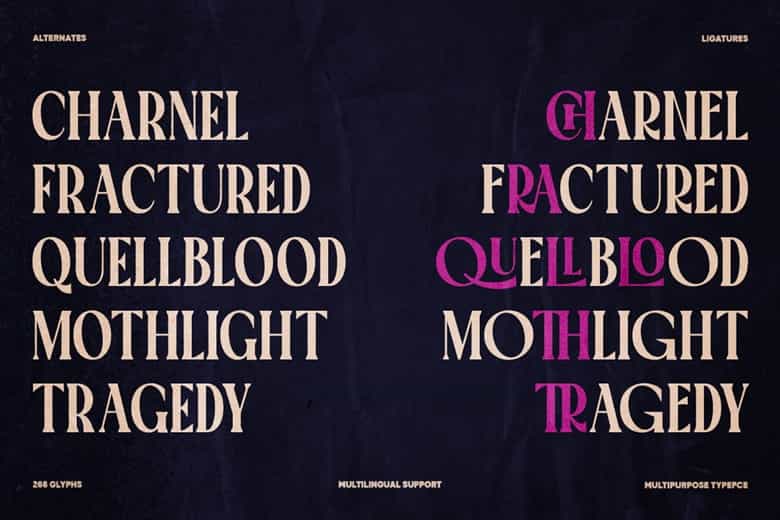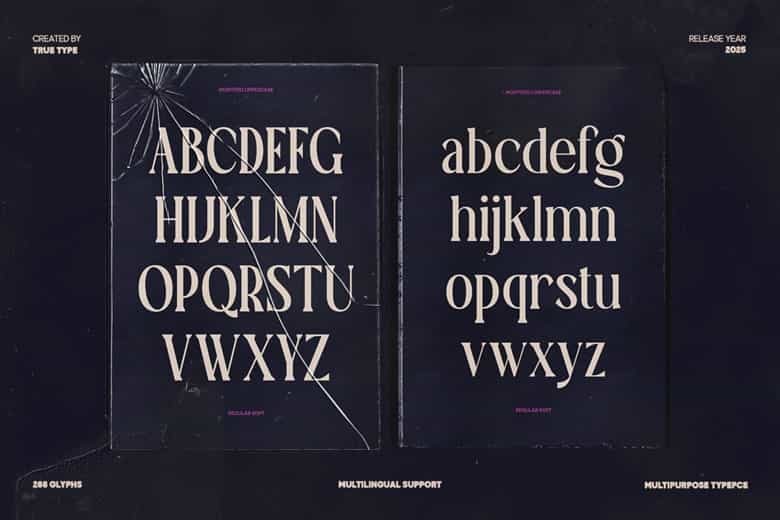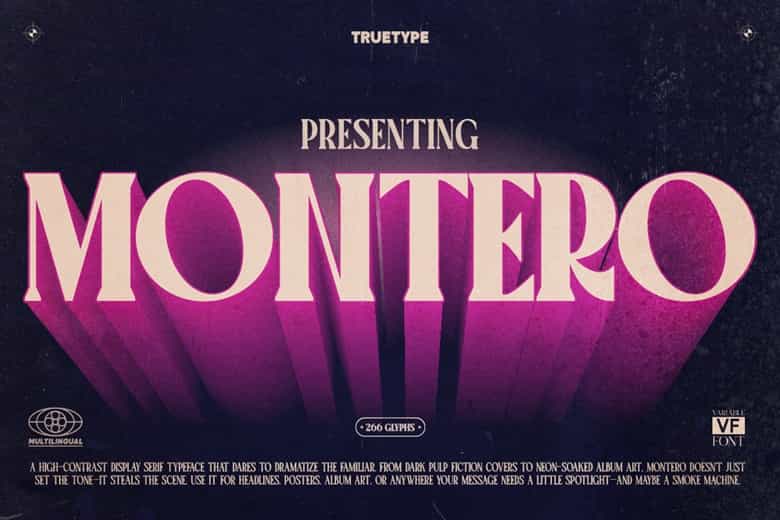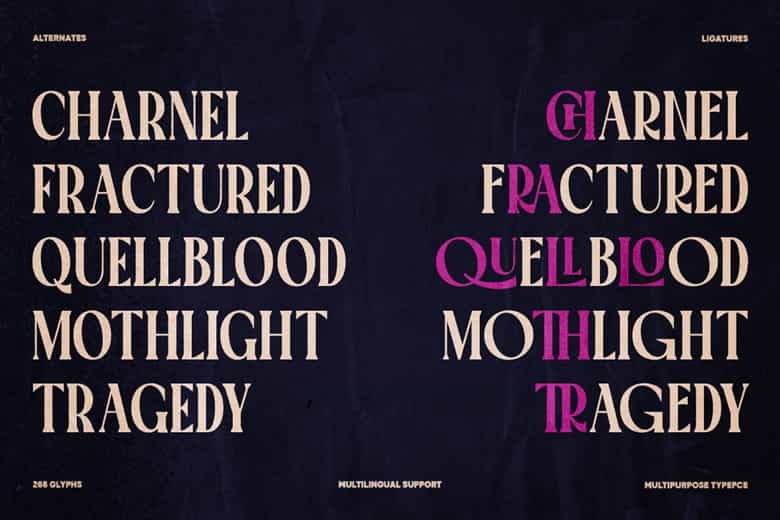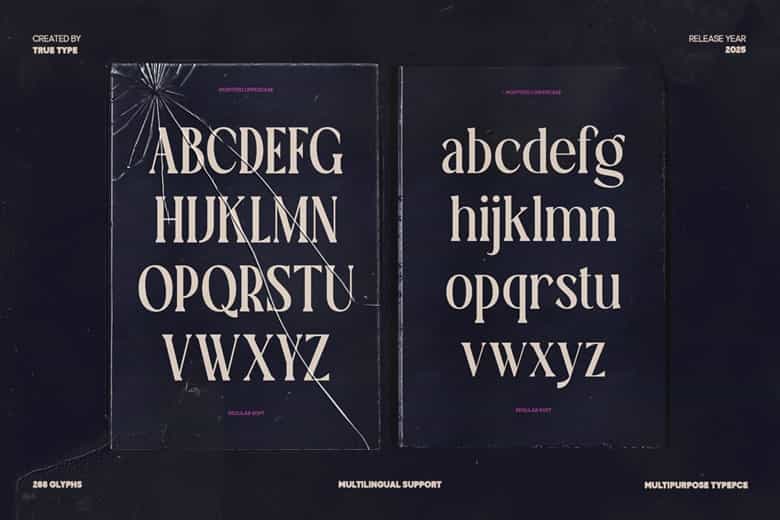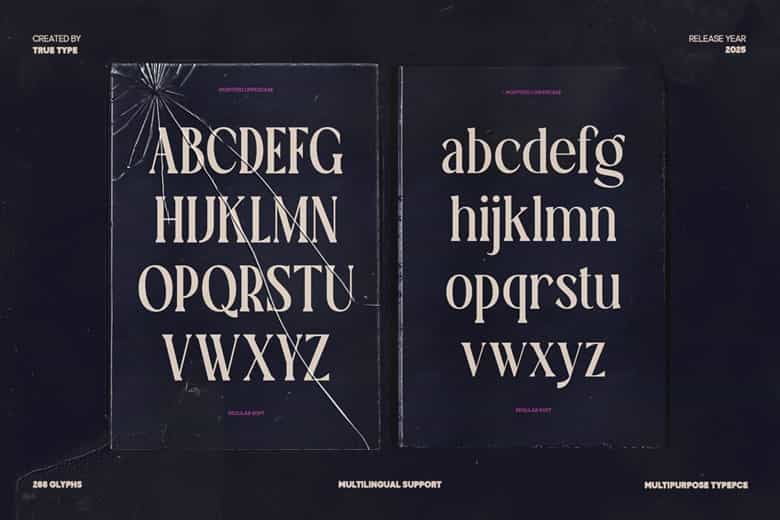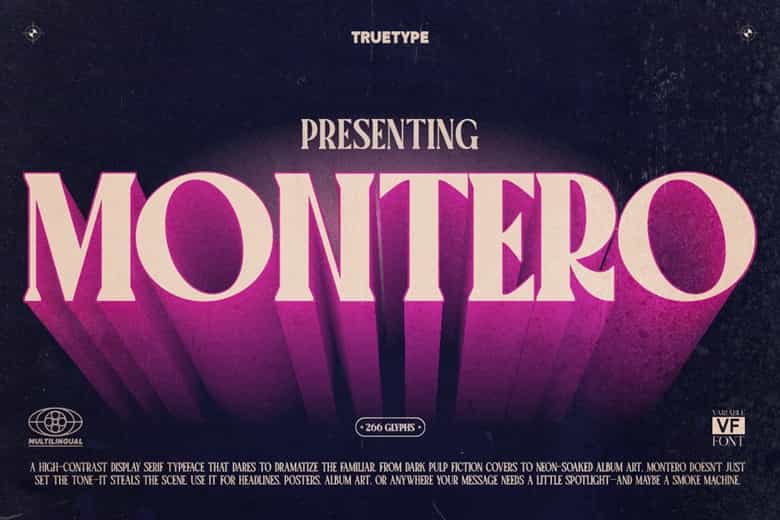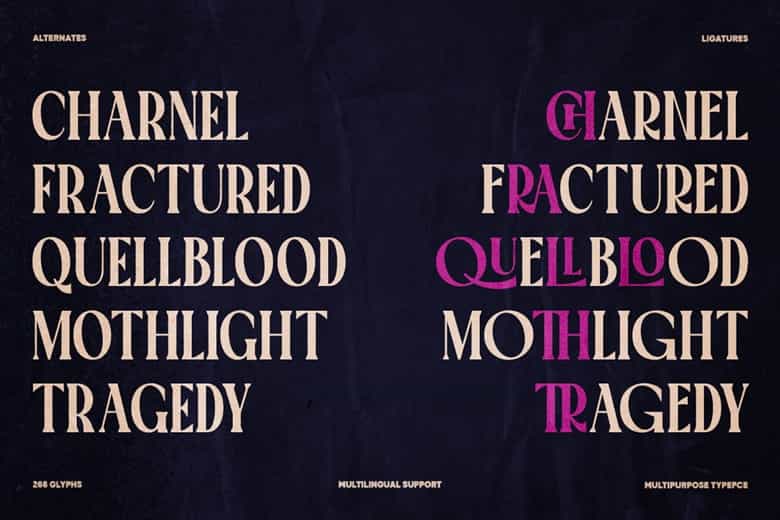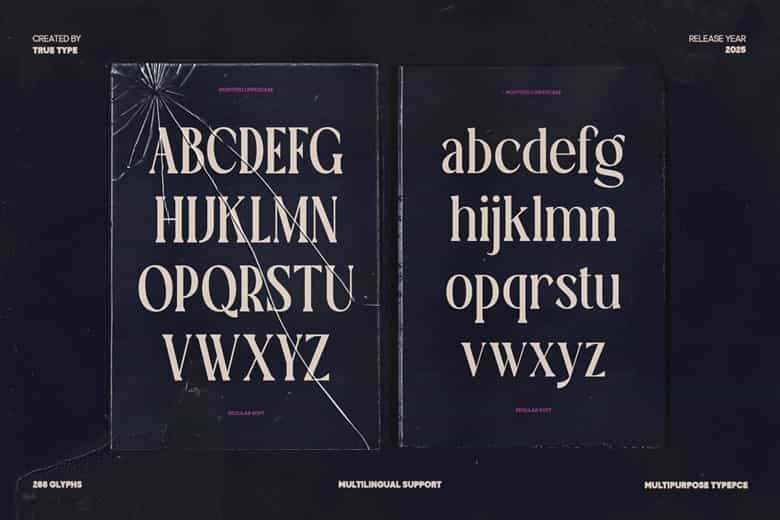
TT Montero is a condensed serif font, which offers a classical and everlasting elegance along with a modern design body. The outcome of its narrow proportions and lettering embellishments makes it invaluable in the context of designers who want space-efficiency but without compromising sophistication. The result of that balance-oriented approach and clear thinking is TT Montero, which works with small caps and OpenType features and can be used in a broad range of both editorial and brand design projects.